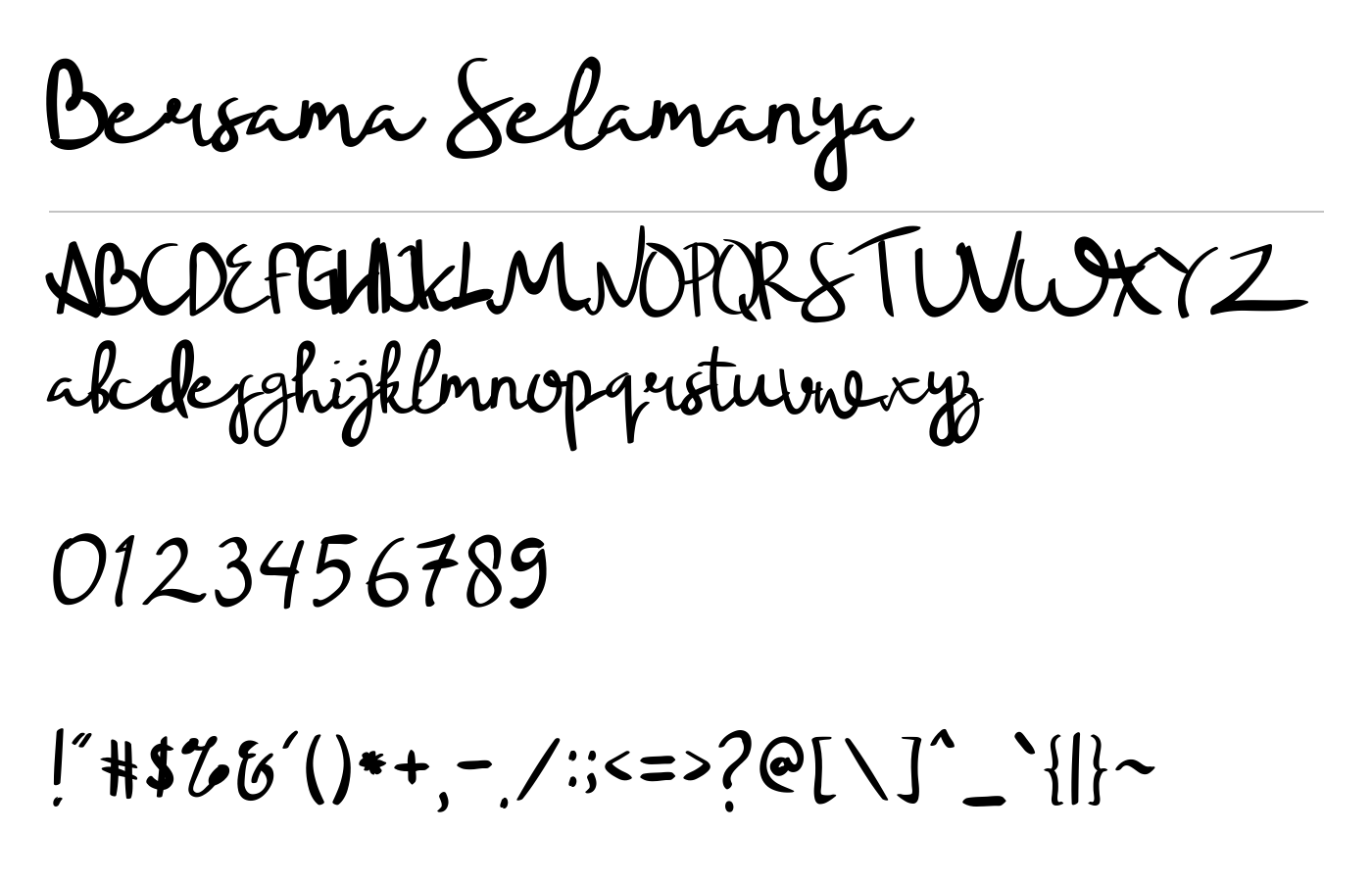
Bersama Selamanya is a playful and casual handwritten script font with a lively, organic flow. Its loose, irregular forms and moderate thickness make it perfect for adding a warm, friendly touch to creative projects such as invitations, branding, and social media graphics. This font works best where a personal, informal vibe is desired, giving designs a charming and approachable character.
Bersama Selamanya Font
About Bersama Selamanya Font